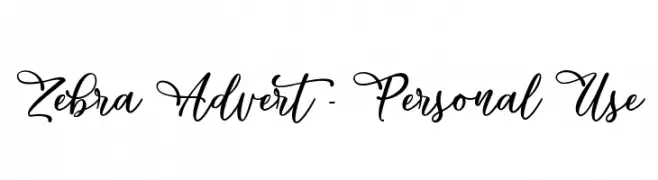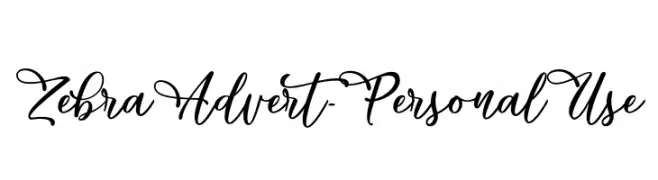
An elegant script font with ornate swashes and flowing curves.
A playful, handwritten font with smooth, flowing lines and decorative elements.
A dynamic and elegant script font with flowing, cursive letterforms and brush-like strokes.
A bold, cursive font with a dynamic, flowing style.
An elegant script font with intricate swirls and loops.
An elegant script font with flowing, cursive letterforms and classic calligraphic style.
An elegant, flowing script font with intricate loops and flourishes.